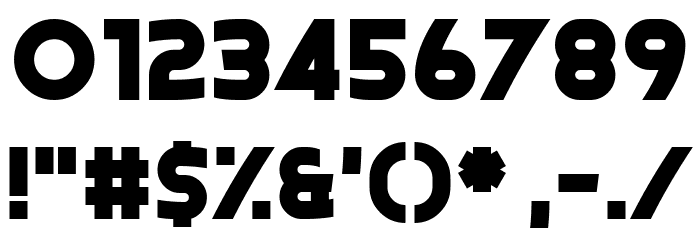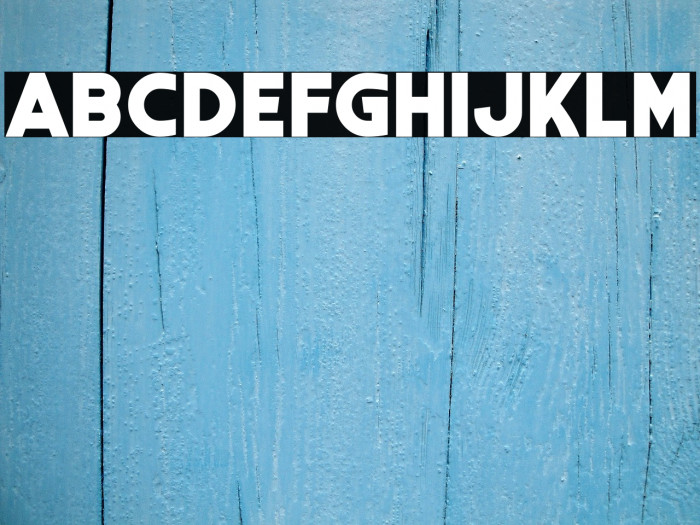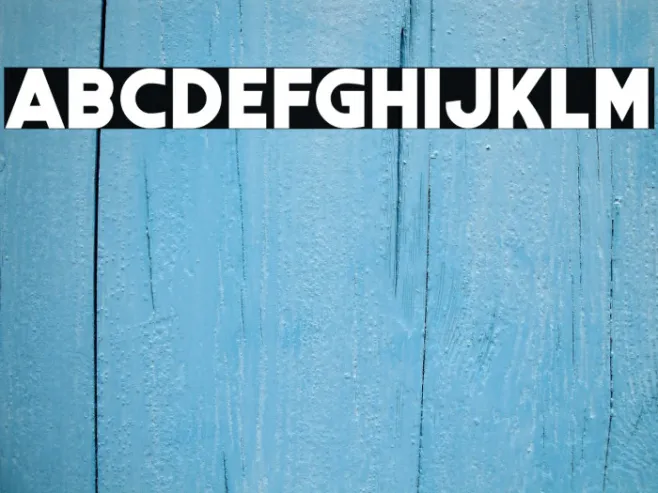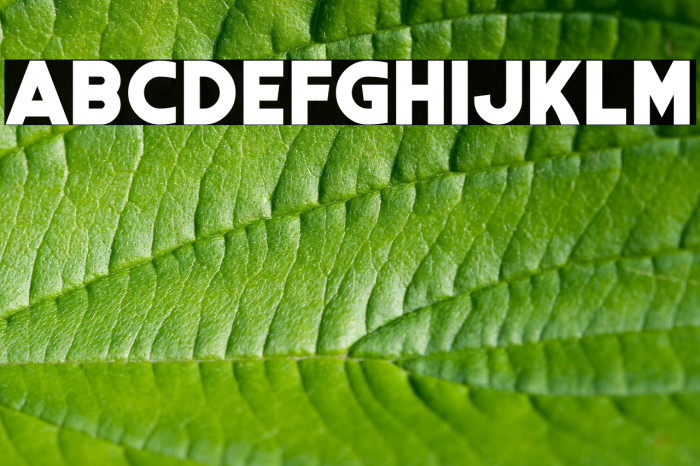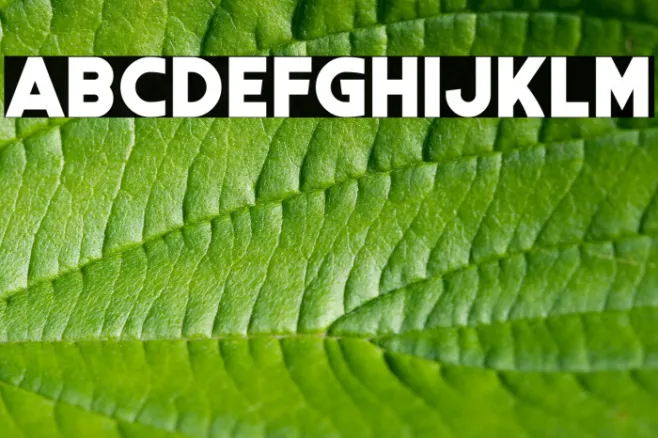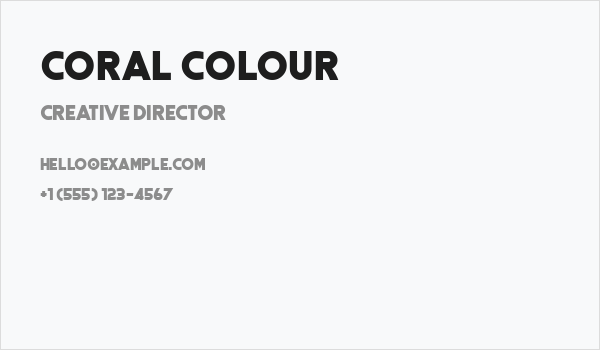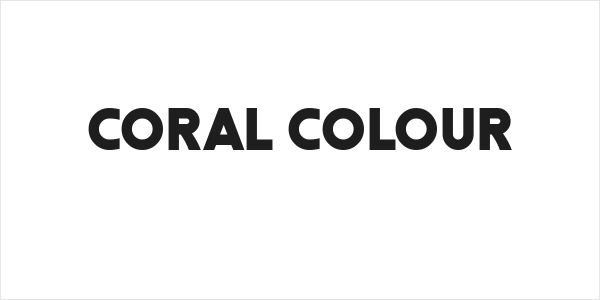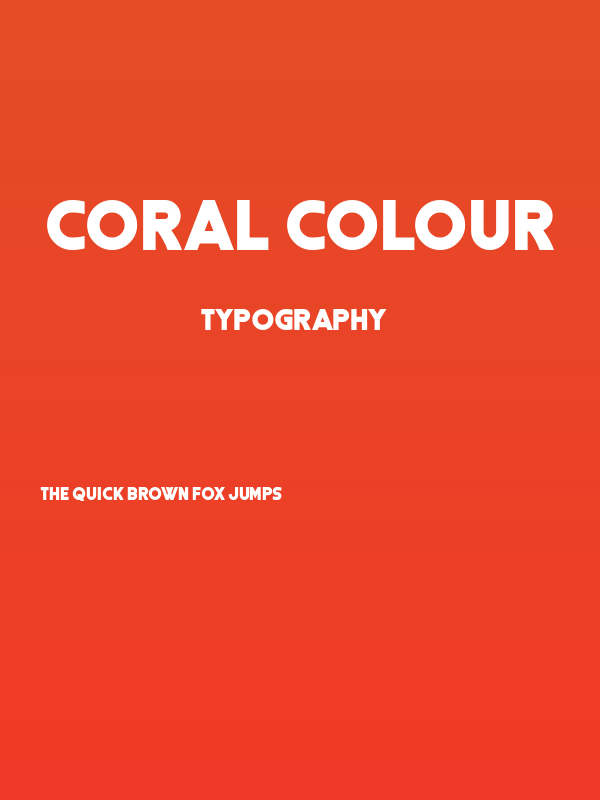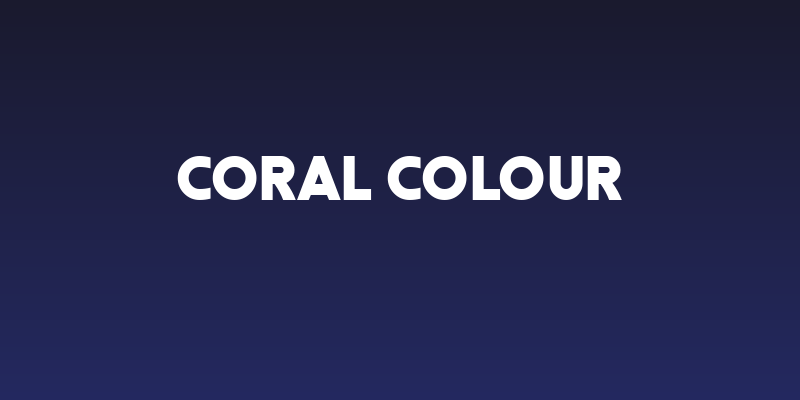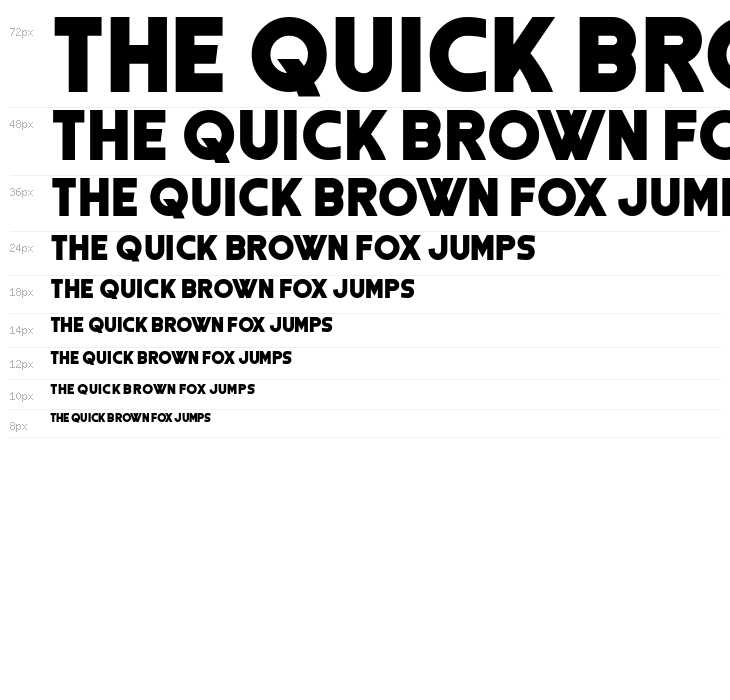
Coral Colour Font
Coral Colour Description
This font features bold, geometric letterforms with a strong presence. The characters are constructed with uniform stroke widths, creating a cohesive and modern appearance. The uppercase letters are particularly striking, with sharp angles and clean lines that convey a sense of strength and stability. The numerals and special characters maintain this bold aesthetic, ensuring consistency across all elements. The overall design is straightforward yet impactful, making it suitable for a variety of applications where clarity and emphasis are desired.
| Use Case | Headlines, Logos, Signage |
| Proposed Projects | Ideal for branding, advertising, headlines, and signage where a strong visual impact is needed. |